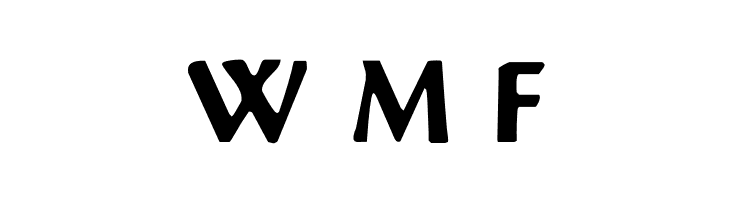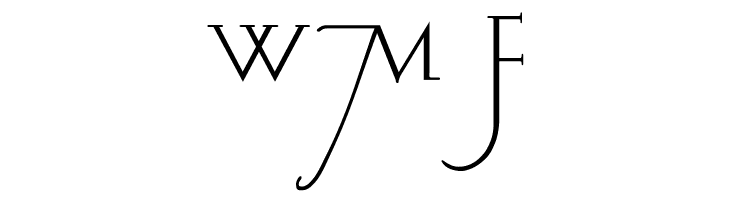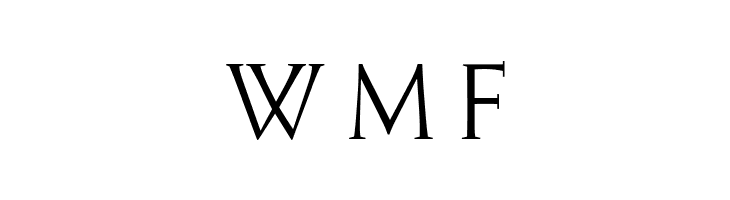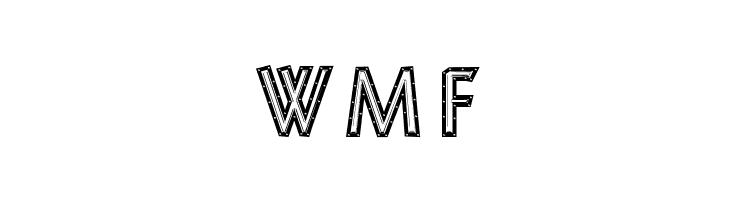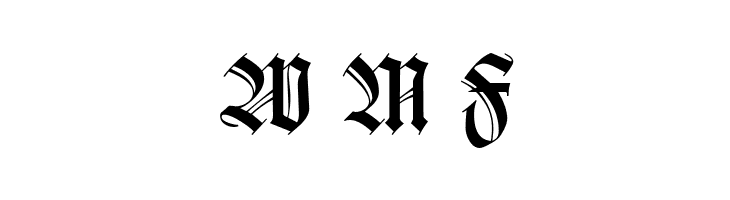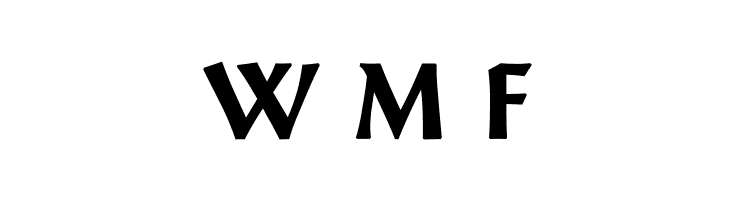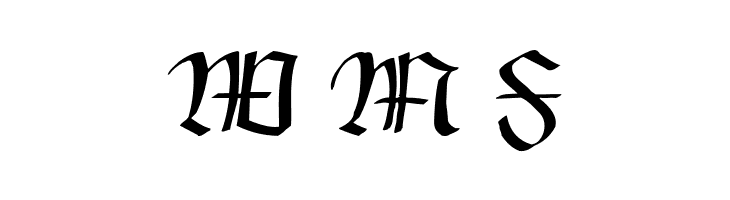
A bold, blackletter-inspired font with a modern edge.
An elegant, elongated font with artistic curves and a modern calligraphic style.
A decorative font with intricate symbols and ornaments for artistic use.
A classic serif font with elegant strokes and sharp serifs, perfect for formal designs.
A bold, industrial font with a riveted steel appearance and three-dimensional effect.
A bold, industrial font with a three-dimensional shadow effect.
A bold, ornate Blackletter font with intricate, angular letterforms.
A bold blackletter font with heavy strokes and angular forms, exuding classic elegance.
A bold, gothic-style font with blackletter influences and dramatic strokes.
A classic blackletter font with intricate, angular strokes and a dramatic appearance.